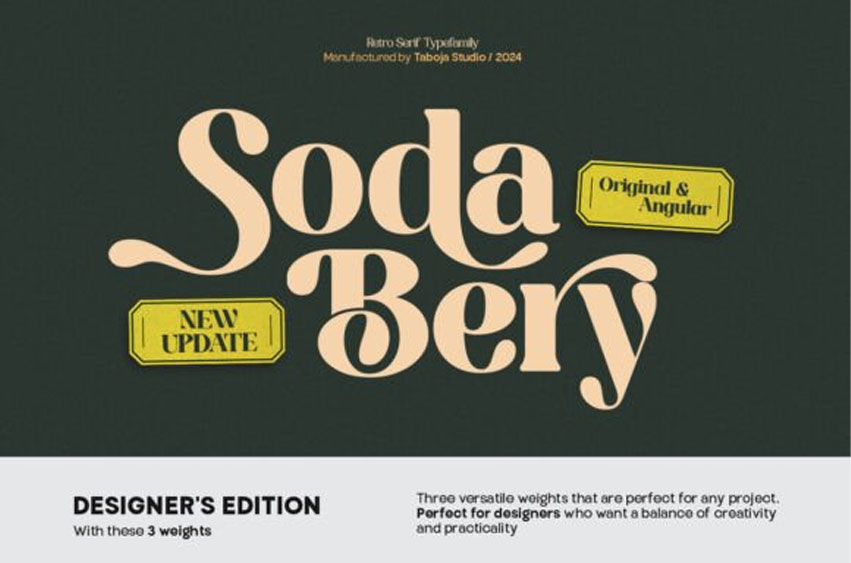
Sodabery Font
Sodabery Font TBJ Sodabery Designer’s Edition – 6 Versatile Weights for Limitless Creativity. I chose Sodabery Designer’s Edition to give you exactly what you need: three versatile weights that are perfect for any project. Whether you’re working on a sleek logo, a bold poster, or digital content, these fonts give you all the flexibility without overwhelming choices. It’s designed to make your creative process smoother, more efficient, and still packed with style.
With these 6 weights, you can focus on what really matters—bringing your ideas to life, no limits, no stress. It’s all about making sure you have the tools to create freely, while keeping things simple and impactful.
Perfect for designers who want a balance of creativity and practicality!